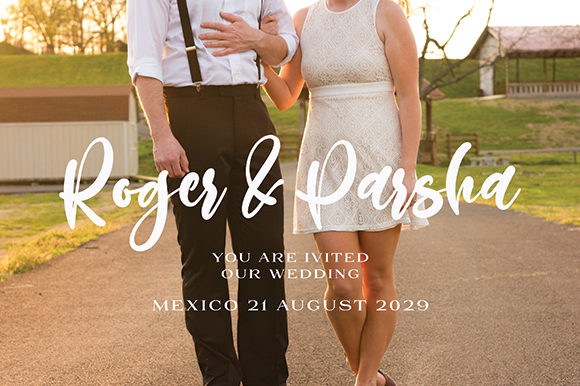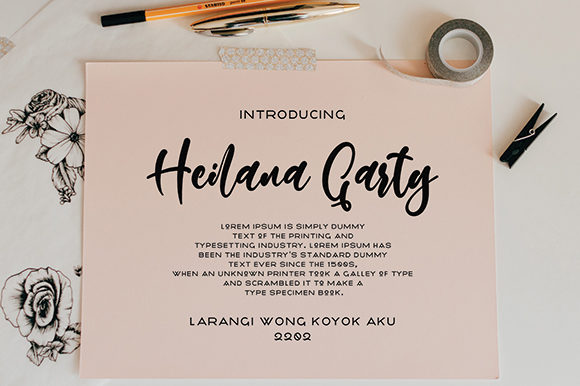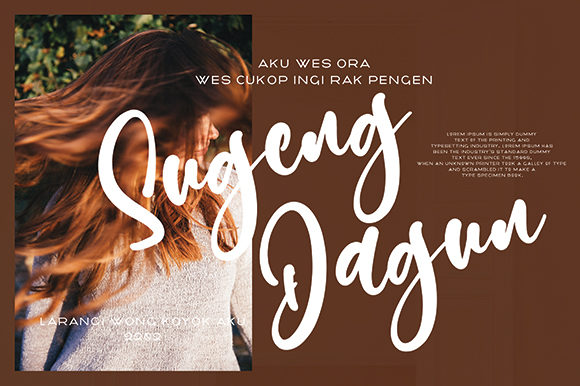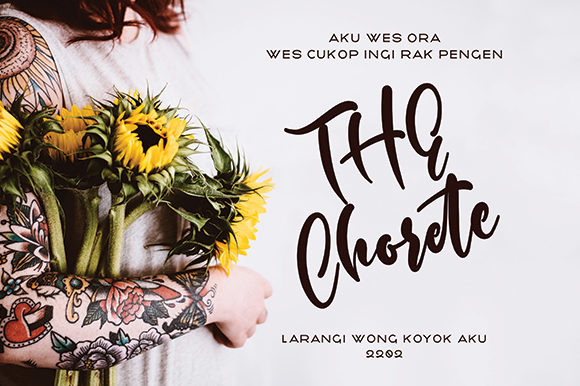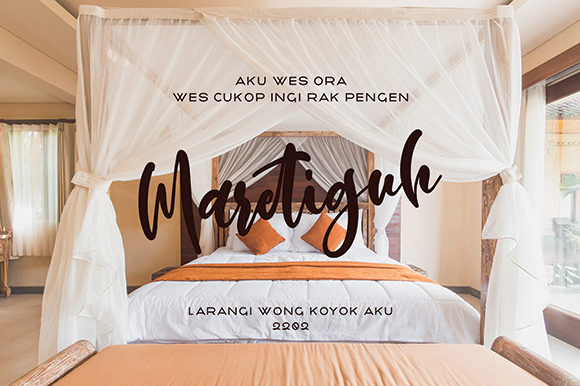
Peratgu Font
About Peratgu Font
Peratgu is a gorgeous and incredibly unique handwritten font. Its flowing and relaxed style makes this font fit for a wide pool of contexts, both formal and non-formal.